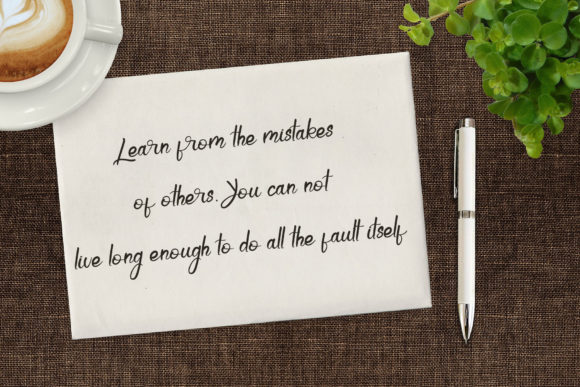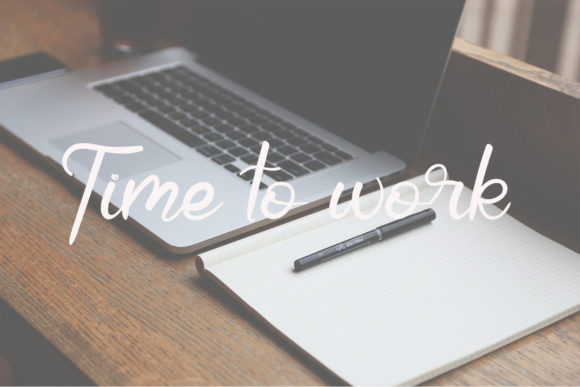
Barbie Font
db-ku.com - Script & Handwritten -- Barbie is a sweet and delicate handwritten font. Dainty and joyful, this font will be ideal for writing wedding invitations, cards or any other design that may need a romantic, personalized touch!